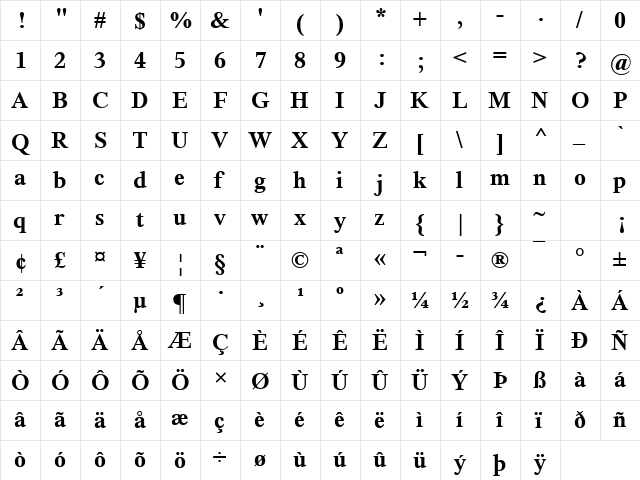
Thorndale Bold
| Foundry | Agfa Monotype Corporation |
| Designer | Agfa Monotype Drawing Office |
Design Context for Thorndale Typeface
Thorndale takes a measured approach to typography — its balanced proportions and neutral character make it a reliable workhorse for both digital and print work. Its bold stroke weight gives it real presence on the page.